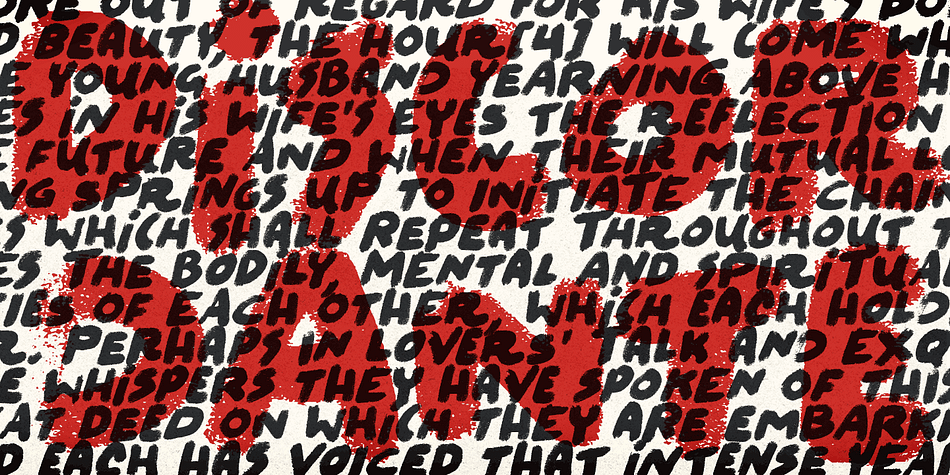
Felt Noisy
Felt Noisy is a grunge and hand display font family. This typeface has two styles and was published by PintassilgoPrints.
Counting four variations for each letter and two for the numbers, Felt Noisy delivers a cool organic feel with a strong and spontaneous attitude.
The typeface was drawn with a bad felt tip pen and resulted in two rather nice fonts that will stylishly fit many visual projects out there that don
Felt Noisy is a two font, grunge and hand display family by Pintassilgo Prints.
Counting four variations for each letter and two for the numbers, Felt Noisy delivers a cool organic feel with a strong and spontaneous attitude. The typeface was drawn with a bad felt tip pen and resulted in two rather nice fonts that will stylishly fit many visual projects out there that don’t look for any transparency at all. Give it a go!